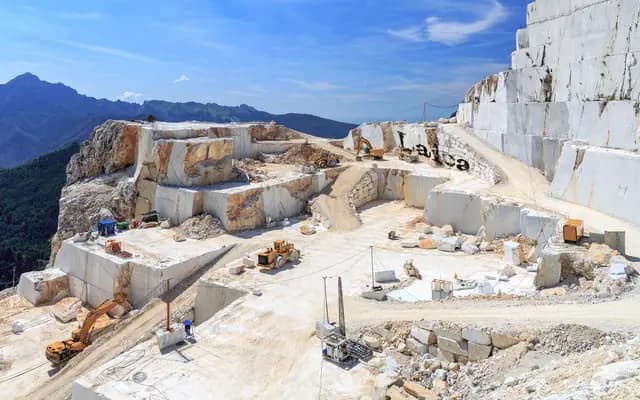
ABC Laica
Dinamo Typefaces · Alessio D'Ellena · 2024
A contemporary serif by Alessio D'Ellena with chiselled transitions and a matching monospaced cut, born of a forced marriage between broad and pointed nib pens.
A contemporary serif by Alessio D'Ellena, sketched as a student at the Royal Academy of Art in The Hague between airport armchairs and Roman trams, that frames itself as a playful retort to calligraphy in an era of cheap flights and remote work. Chiselled transitions create rhythm and optical balance for text, and a stylistic set switches them to straight transitions for a simpler tone. Both proportional Laica and Laica Mono ship in Light, Book, Regular, Medium and Bold weights with matching italics, sitting comfortably across editorial, branding and code-adjacent product work.
Dinamo describes Laica as the result of a forced collaboration between the broad nib pen and the pointed nib pen, with chiselled transitions by default that can be flattened to straight transitions via a stylistic set, available in proportional and monospaced subfamilies.